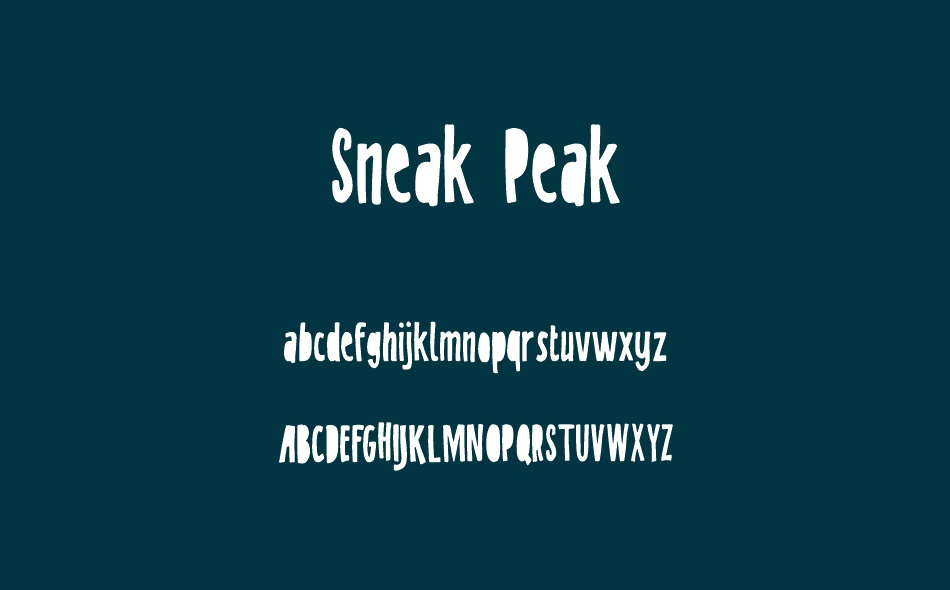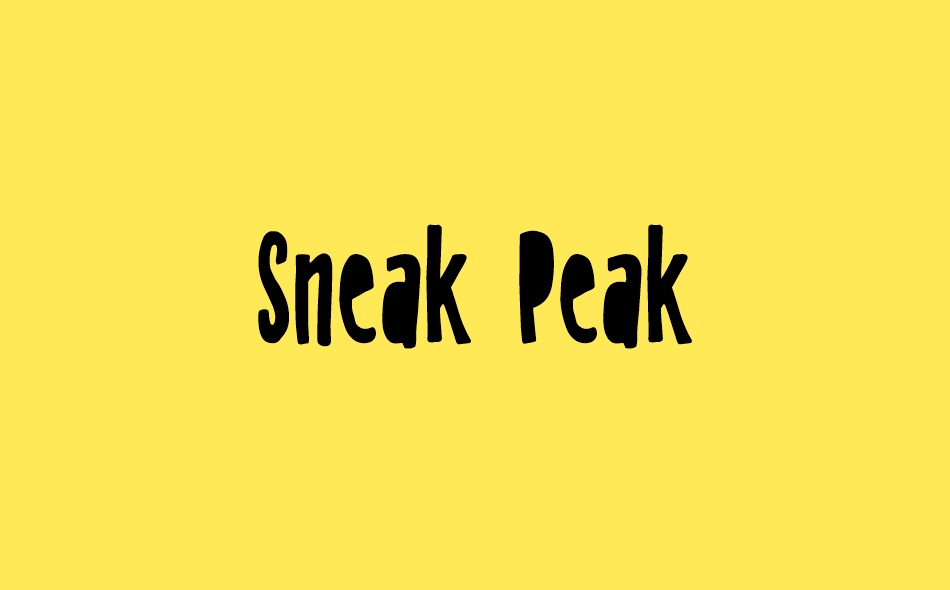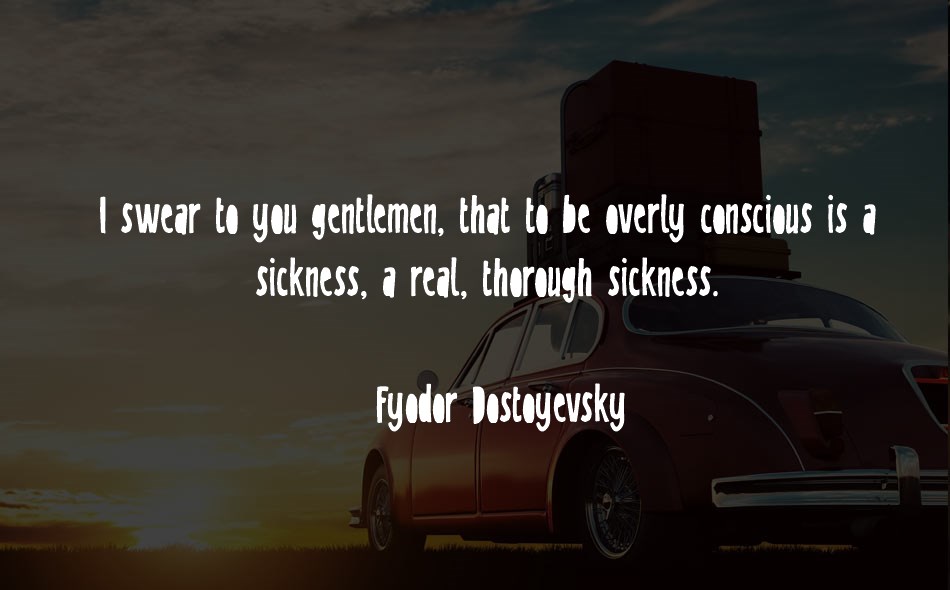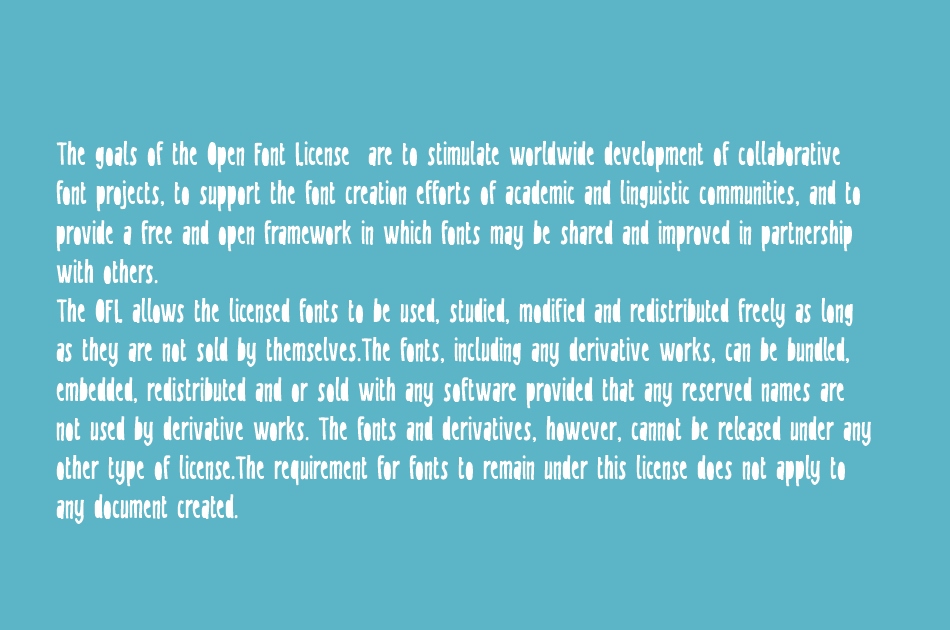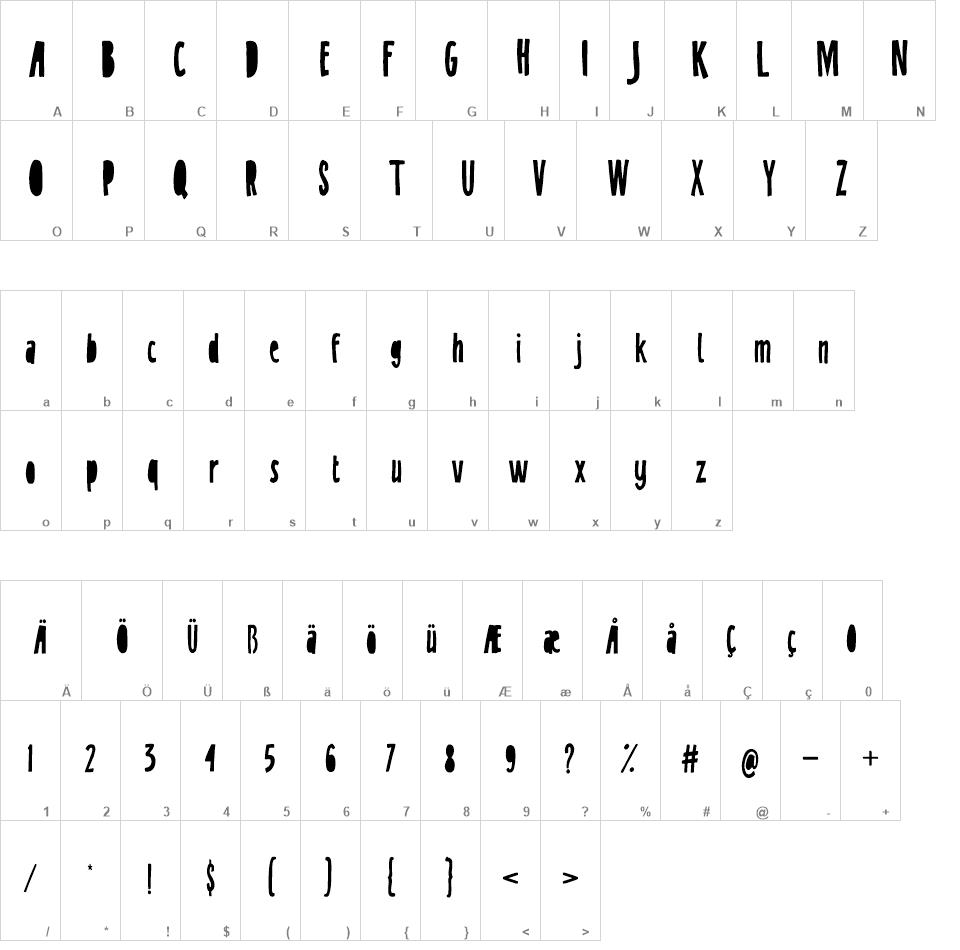
Sneak Peak font
Sneak Peak is a adorable, fun, and kids display font, carefully handcrafted to become a true favorite.
This font will look outstanding in any context, whether its being used on busy backgrounds or as a standalone headline!